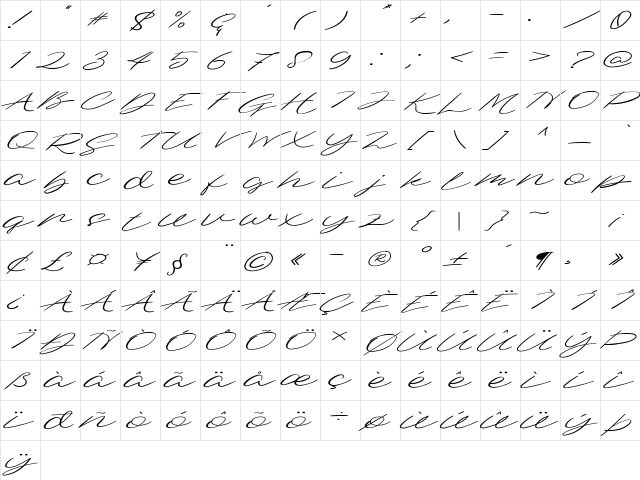
Complete Dellafina Street High Italic Regular glyph index. Displaying only characters natively supported by Dellafina Street High Italic Regular font.
Dellafina Street High Italic is a composed and adaptable typeface that performs quietly and consistently across a wide range of design contexts. The slanted form adds forward momentum and visual energy.
Pro Tip: Use Dellafina Street High Italic for emphasis, pull quotes, and subheadings where its slanted energy can add rhythm to the layout.